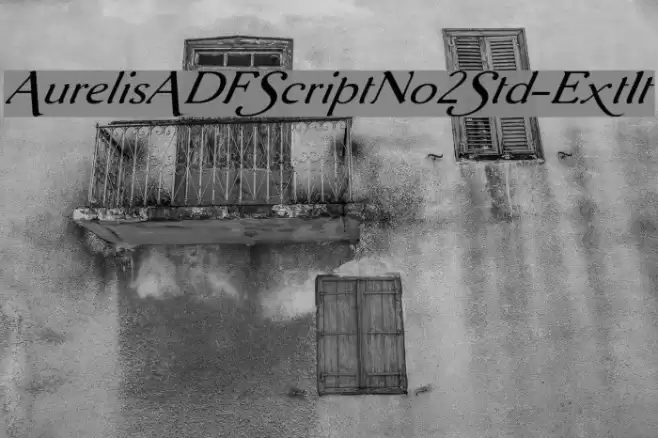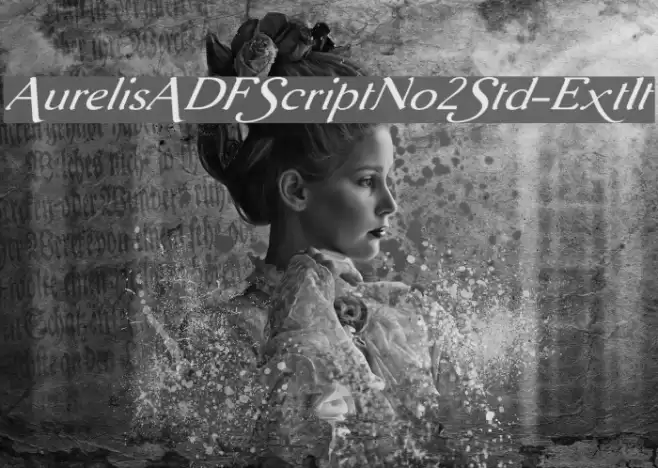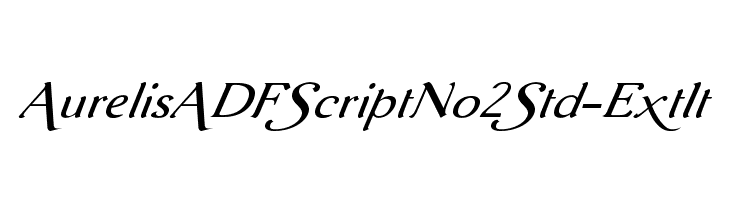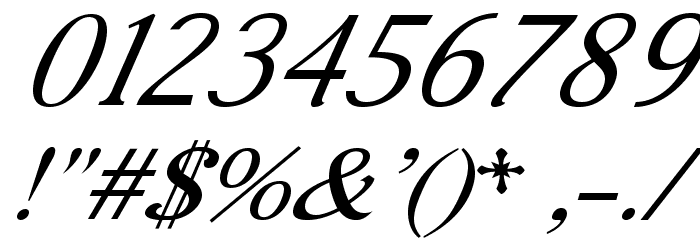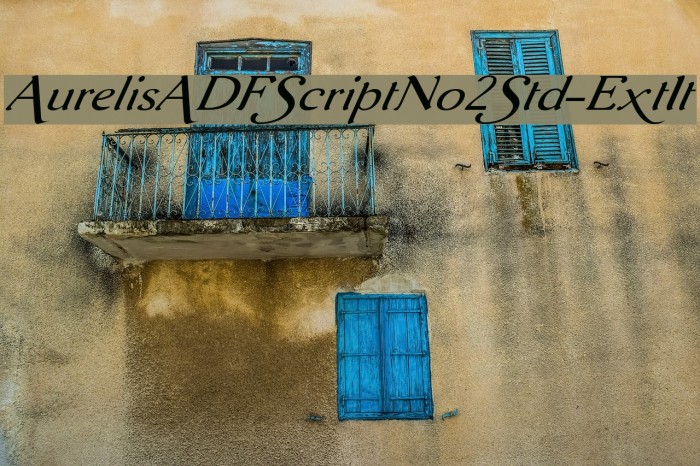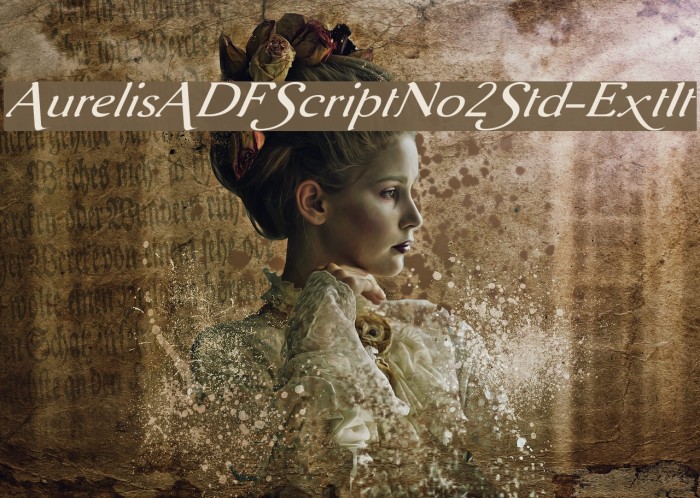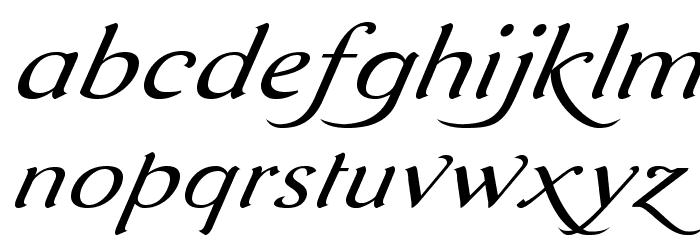
AurelisADFScriptNo2Std-ExtIt Font
AurelisADFScriptNo2Std-ExtIt Description
This elegant script font features a flowing, cursive style with a sophisticated flair. The characters are slightly slanted, adding a dynamic and graceful touch. The uppercase letters are bold and prominent, while the lowercase letters maintain a consistent fluidity. The numerals are stylish and complement the overall script design. Special characters are well-integrated, maintaining the font's cohesive aesthetic. The strokes vary in thickness, providing a moderate contrast that enhances readability while preserving the decorative nature of the script.
An elegant, flowing script font with moderate contrast and dynamic slant from Uncategorized fonts.
- Proposed Projects: Ideal for wedding invitations, elegant branding, greeting cards, and sophisticated logo designs.
- Overall Style: Elegant, Decorative
- Use Case: Invitations, Branding, Logos